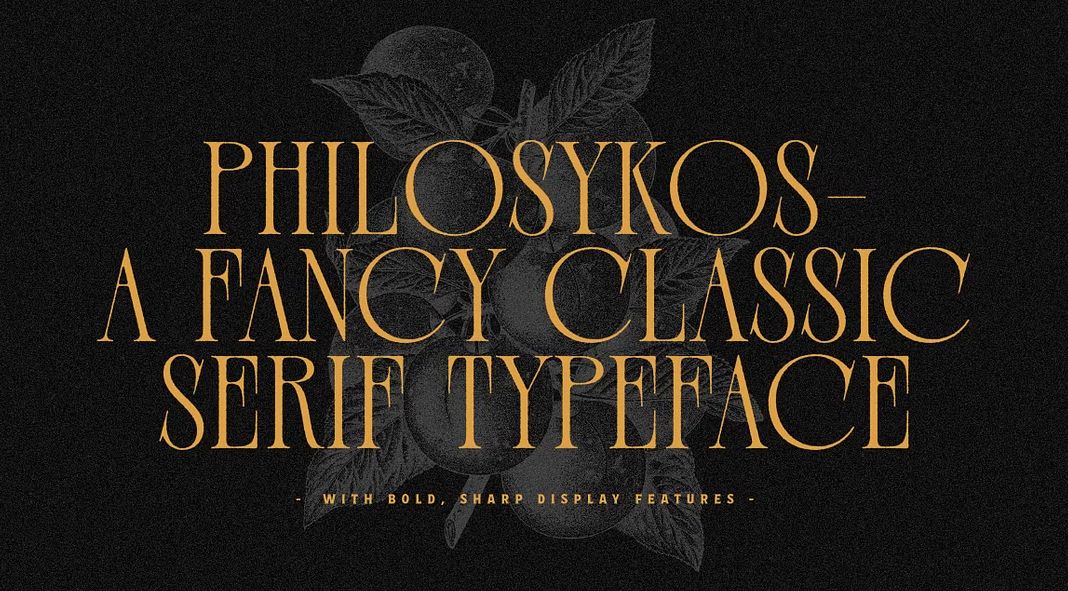
Introducing Philosykos: Cultivate Class in Your Designs
Craving a typographic upgrade that injects a touch of cultured sophistication? Look no further than Philosykos, the brainchild of Harmonais Visual. This meticulously crafted typeface transcends the ordinary, offering a symphony of elegance and finesse to elevate your design projects.
Philosykos boasts an impressive repertoire of over 80 ligatures, those delightful flourishes that seamlessly connect letters, adding a touch of artistic flair. This, coupled with its meticulously honed details, imbues your designs with a timeless, cultured aesthetic.
Versatility is another feather in Philosykos’s cap. With four distinct styles – Regular, Italic, Bold, and Bold Italic – it adapts effortlessly to a variety of creative endeavors. Whether you’re crafting a captivating logo, designing sleek packaging, or breathing life into a book cover, Philosykos guarantees to elevate your work to new heights.
So, if you yearn for a typeface that exudes timeless elegance and effortless style, look no further than Philosykos. Embrace its potential to cultivate a truly sophisticated visual language in your designs. Experience the transformative power of Philosykos today and witness the remarkable difference it brings to your creations.
With Philosykos by your side, embark on a journey of refined design expression.